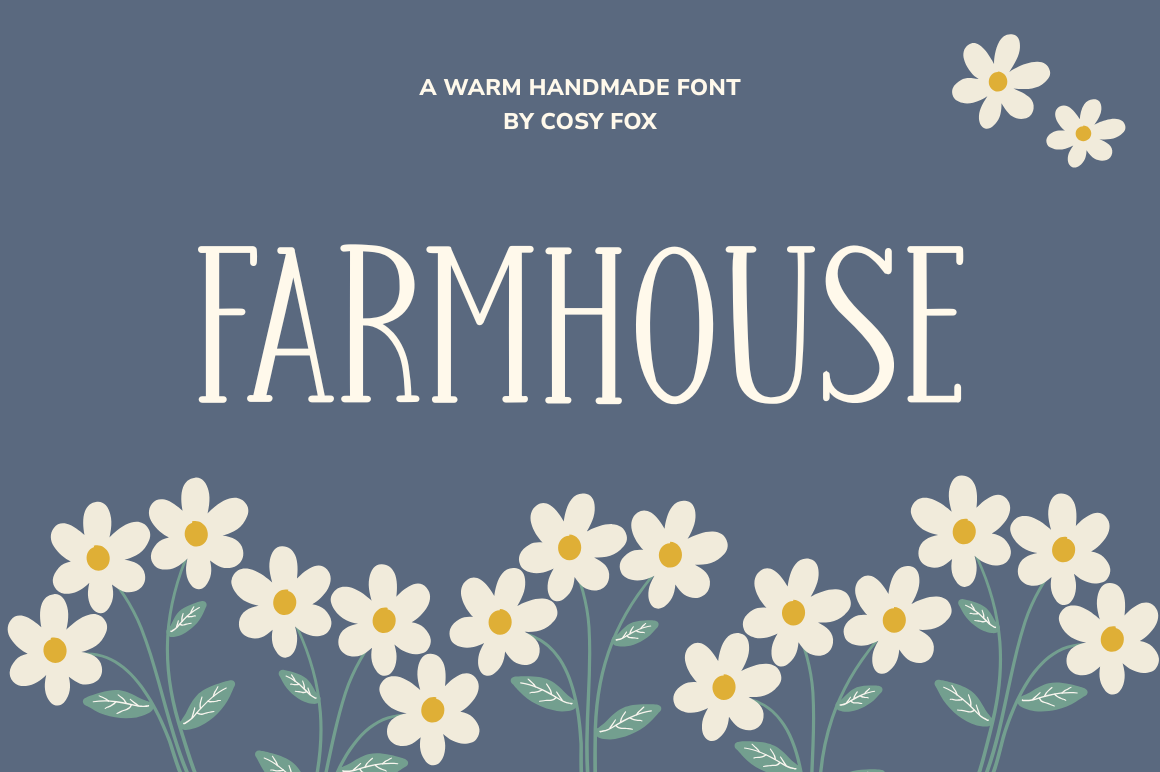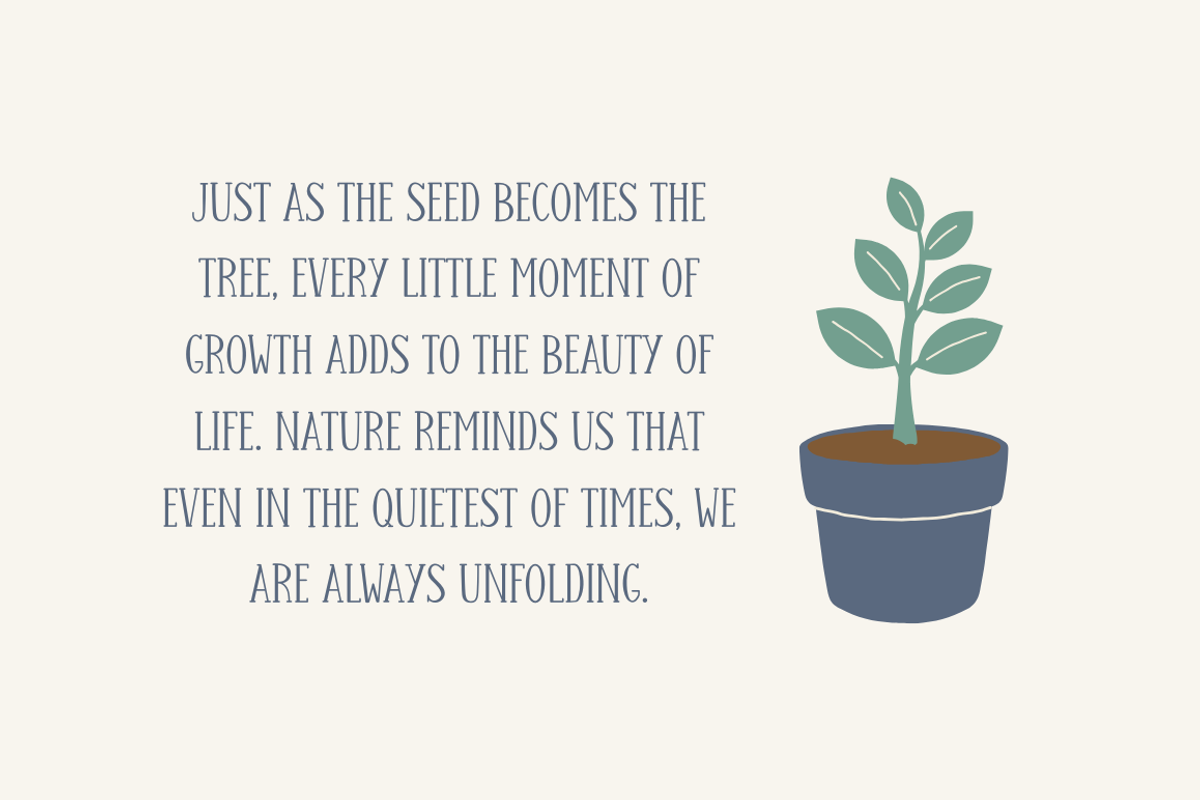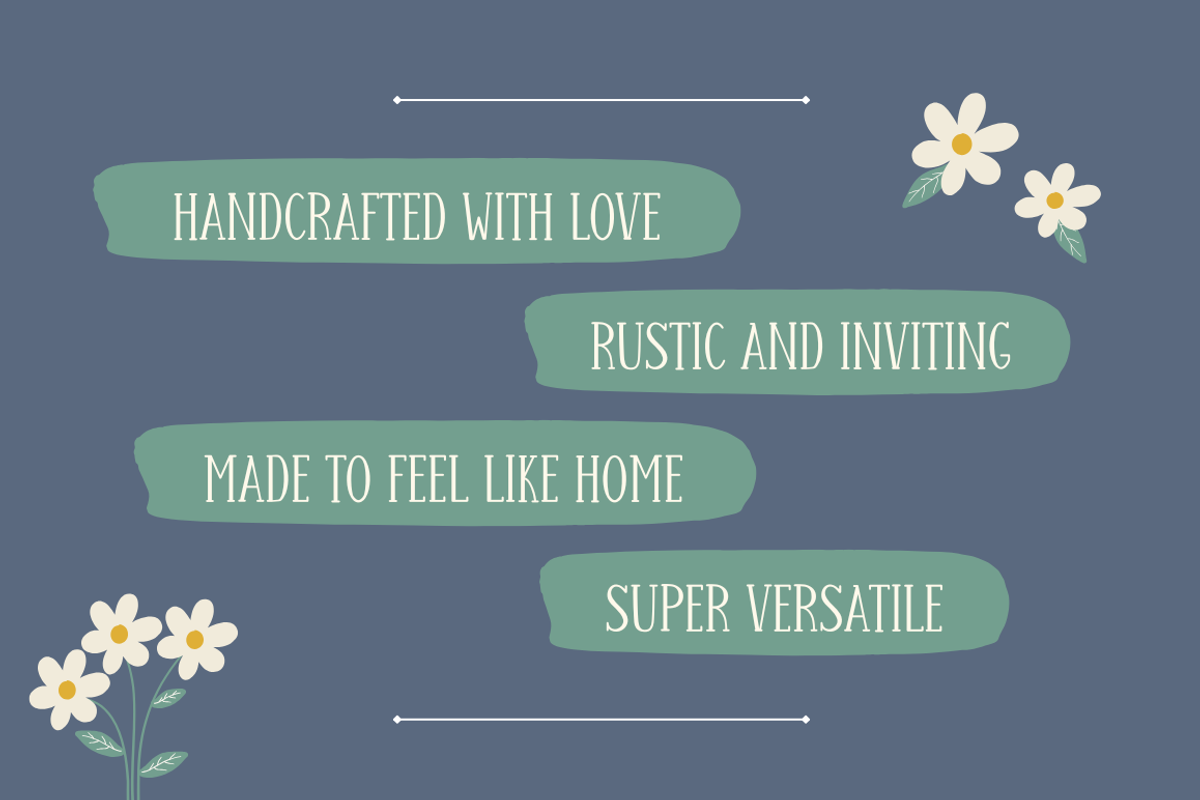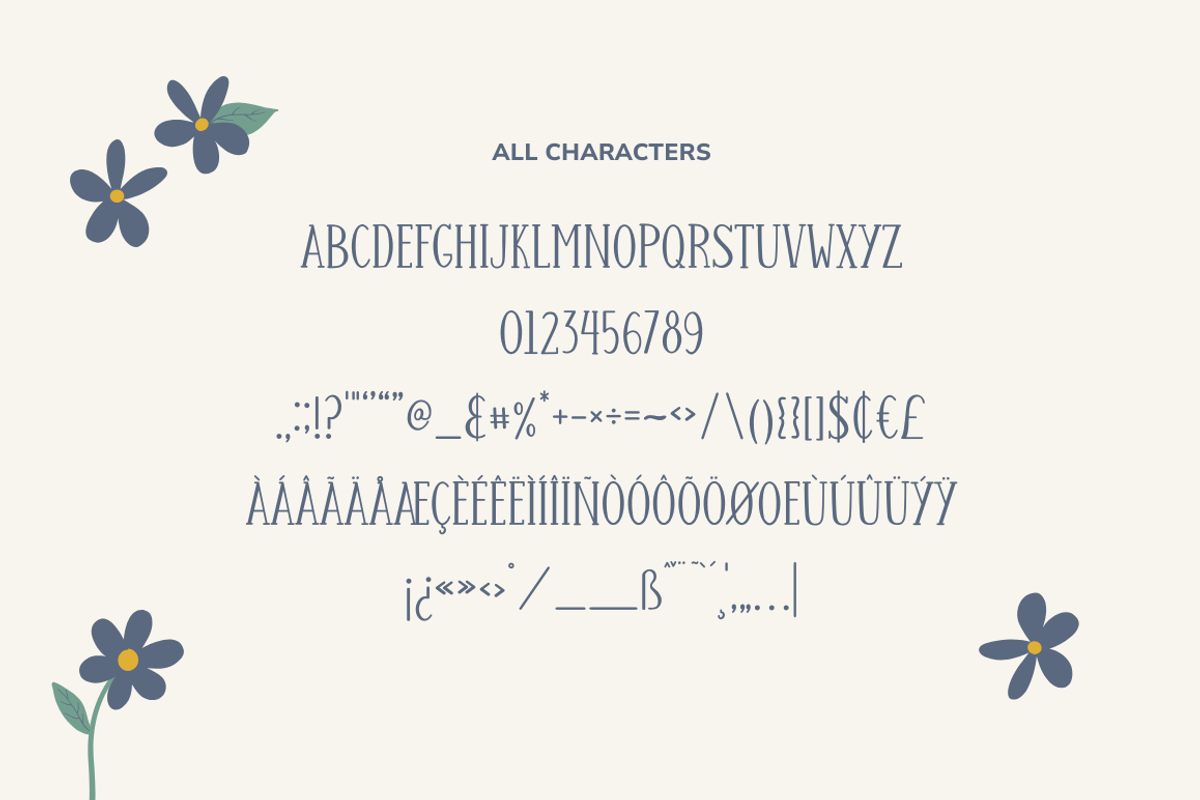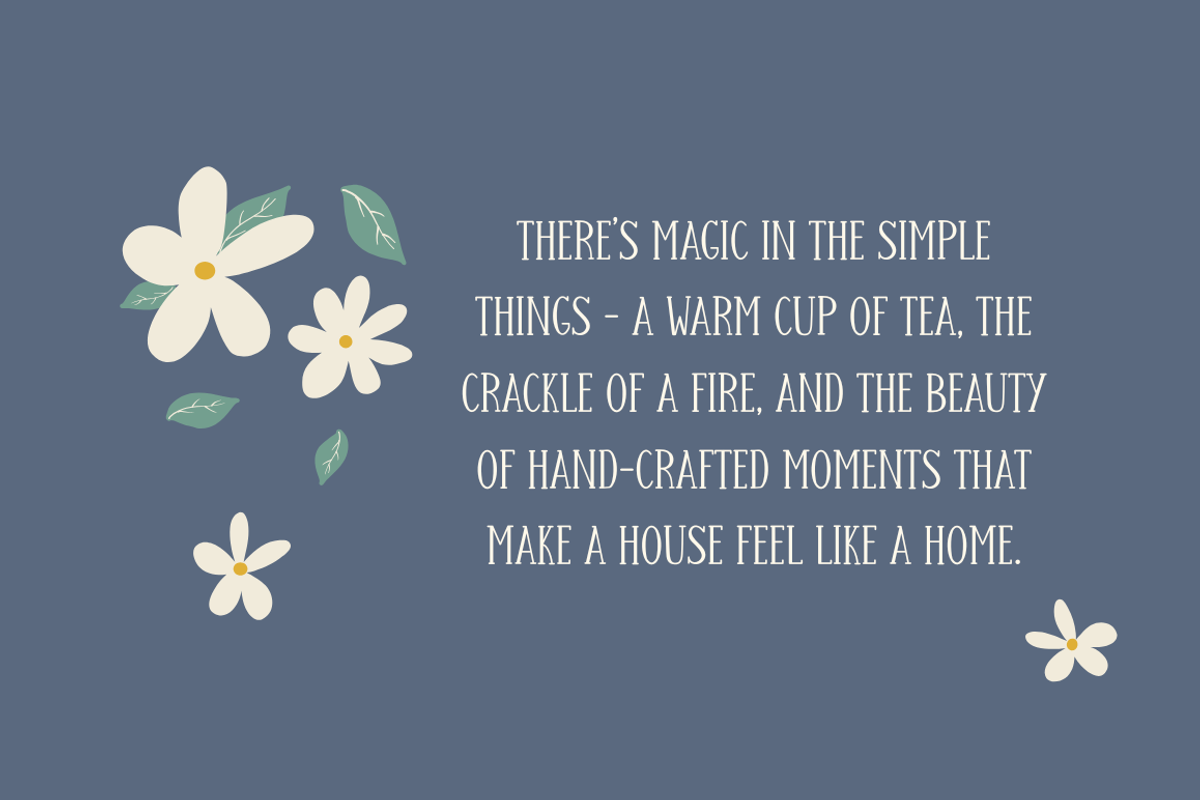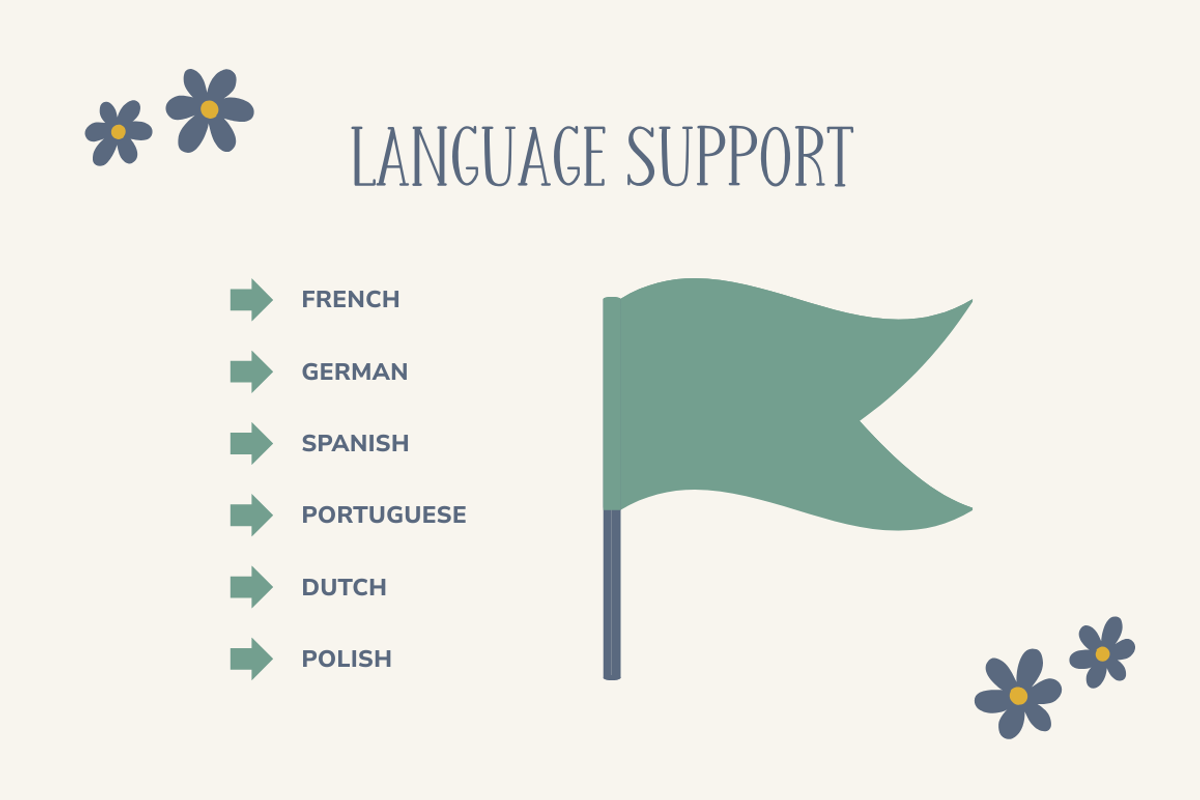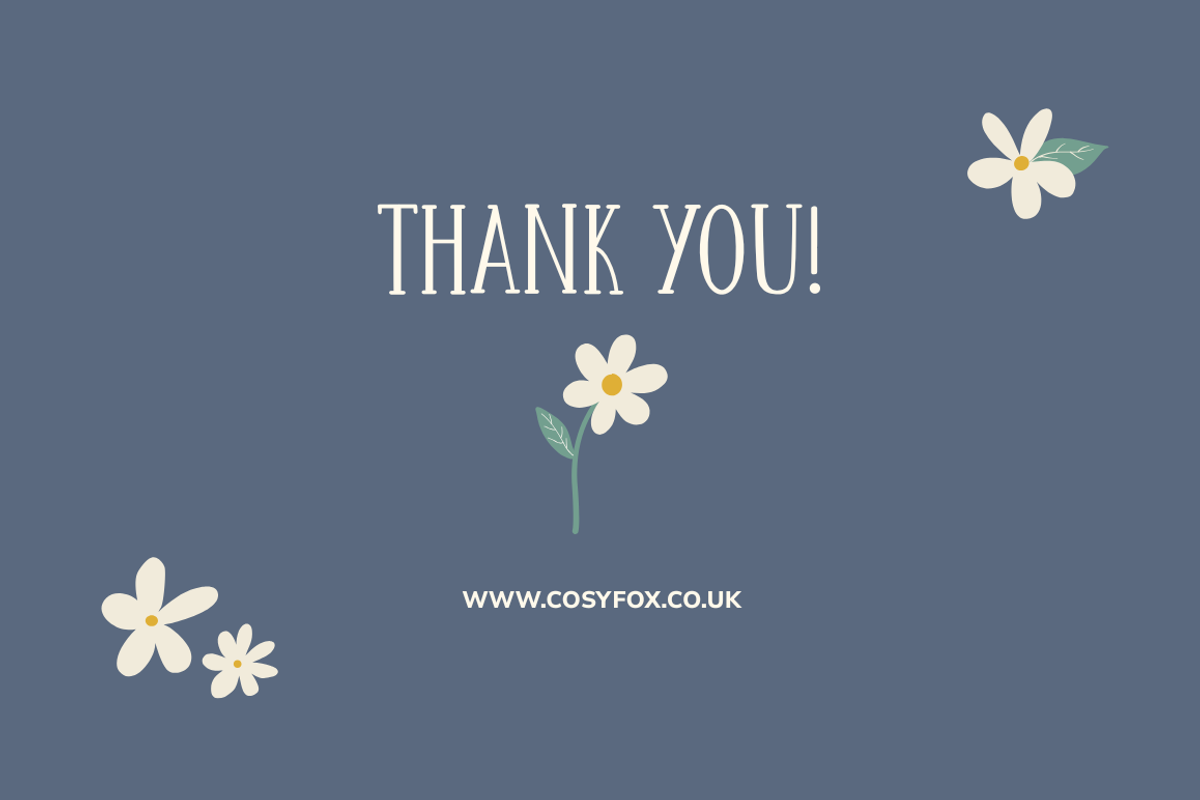
Farmhouse Rustic Font
Introducing Farmhouse, a quirky and rustic font designed to bring a cozy, hand-crafted feel to your creative projects. With its imperfect, playful charm, this font is perfect for designs that require a little extra warmth and personality. Whether you’re crafting branding for a small business, designing rustic wedding invitations, or adding a touch of whimsy to your DIY projects, Farmhouse is the ideal choice.
- Hand-drawn design for an authentic, personal touch.
- Quirky and rustic – perfect for vintage, country, or cosy themes.
- Versatile for a variety of projects – from signage to social media graphics.
- Easy to use with a clean, readable structure despite its whimsical flair.
Bring a little bit of farmhouse charm to your designs with this delightful, hand-drawn font. Perfect for those who love the coziness of home and the warmth of handmade creations.